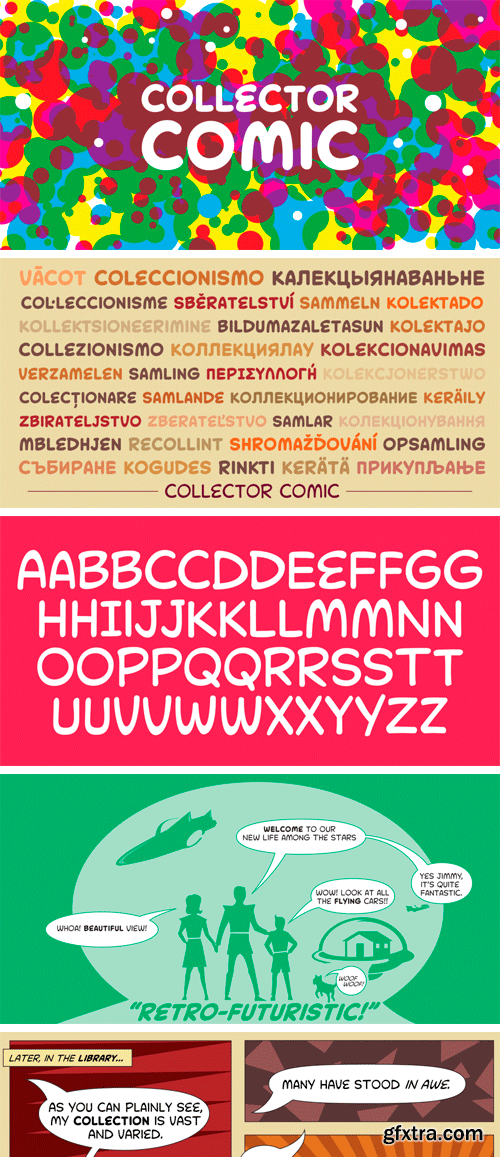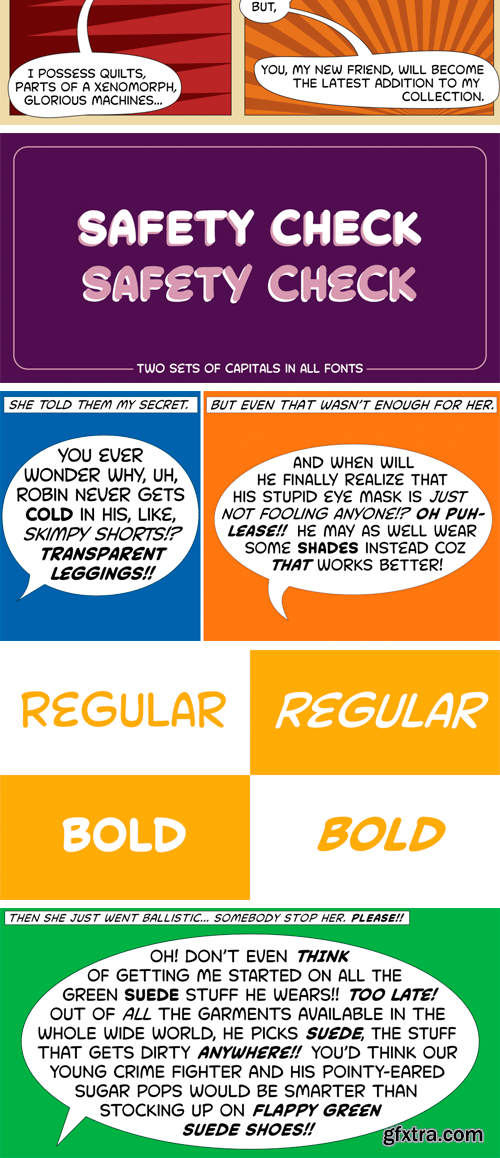
Collector Comic is a carefully researched and crafted family of comic ballooning fonts. It employs two different sets of letters, one based on old school Silver Age (1956 - 1970) and Bronze Age (1971 - 1986) comic books in the uppercase positions, and one with a more temporary Modern Age (1986 and on) spin in the lowercase positions. The brilliant work of comic lettering masters Sam Rosen and Artie Simek was a great influence on Collector Comic.
Although the emphasis was on making these fonts work in comic book and graphic novel balloons, they do indeed perform just as nicely in display. No loose points or jaggies here. Make these letters as large as you want and they will not let you down. Collector Comic comes in two weights and corresponding italics, and is available in all popular font formats. All fonts are complete sets and loaded with accented characters. This set of fonts contains a very expanded character set that includes full support for Central, Eastern and Western European languages, as well as Baltic, Turkish, Esperanto, Greek, Cyrillic and Vietnamese.